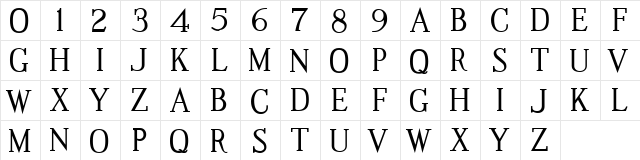
RemcoModifiedRoman XPDF Regular Font Preview
RemcoModifiedRoman XPDF Regular
RemcoModifiedRoman XPDF Regular Font Details
Design Context for RemcoModifiedRoman XPDF Typeface
RemcoModifiedRoman XPDF offers clean, dependable letterforms without strong stylistic allegiance, making it a practical choice for designers who need flexibility.
Pro Tip: Use RemcoModifiedRoman XPDF in both headline and body roles to test its range before committing to a single application.